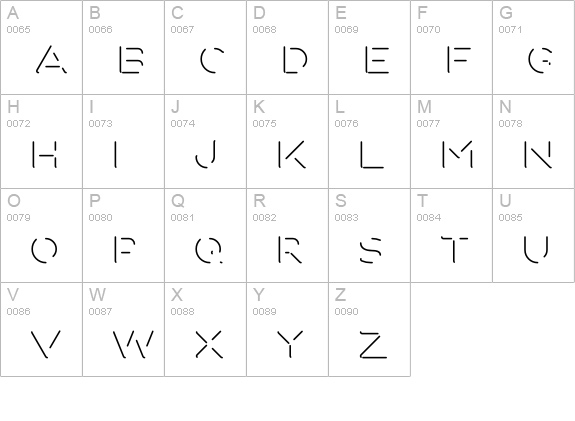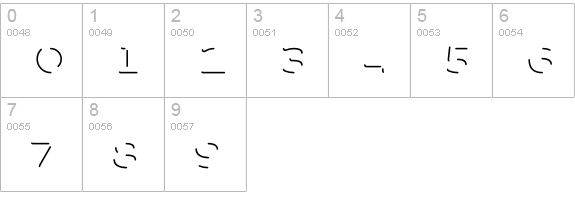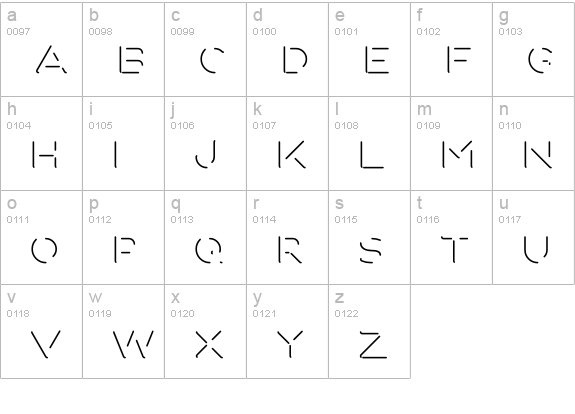
Fun City Level 3 Reflection Font Details
Fun City Level 3 Reflection font is a playful and vibrant typeface that exudes energy and creativity. With its quirky and fun design, this font is perfect for adding a touch of whimsy to any project. The Reflection style adds an extra dimension to the font, making it stand out even more. This font is freely available to download at FontsMarket.com, allowing you to easily add a fun and unique touch to your designs without any cost. Whether you're working on a poster, invitation, or branding project, Fun City Level 3 Reflection font is sure to bring a sense of fun and excitement to your work. Download it today and let your creativity shine!